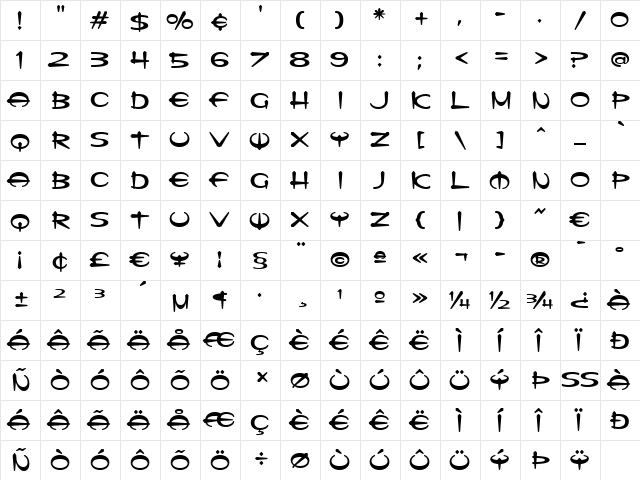
Tannarin BT Regular
Design Context for Tannarin BT Typeface
Tannarin BT is a composed and adaptable typeface that performs quietly and consistently across a wide range of design contexts.